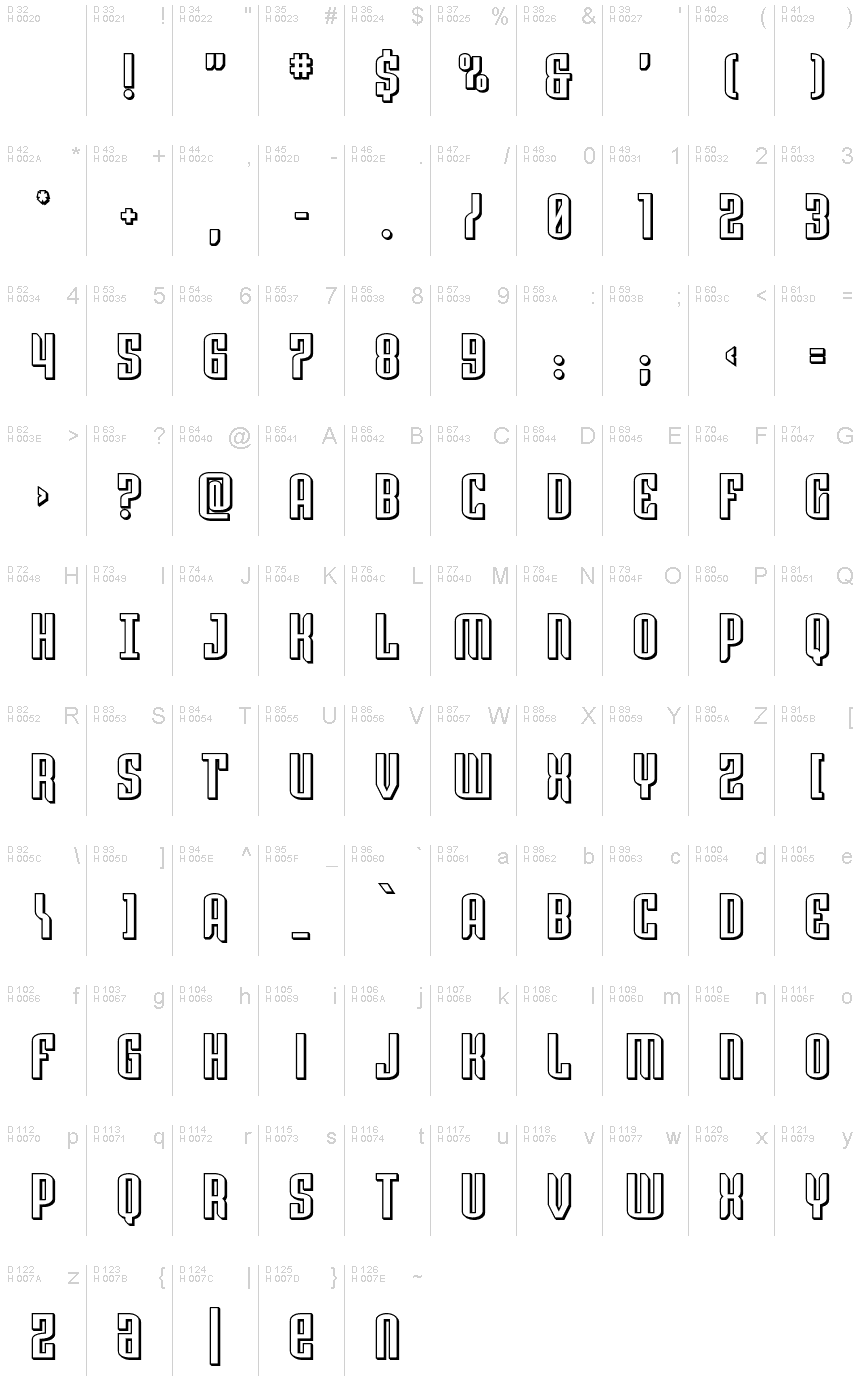
Icewave 3D
Icewave 3D is a cutting-edge display font designed by Iconian Fonts. With its striking 3D techno style and extra-condensed width, this font exudes modernity and sophistication. Perfect for futuristic projects, Icewave 3D adds a touch of high-tech elegance to game titles, sci-fi book covers, or technology-focused websites. Its bold presence demands attention and delivers an unforgettable visual impact. Let your creativity soar as you explore the endless possibilities this font offers, captivating audiences across various media. Unleash the power of Icewave 3D to create designs that stand out from the crowd with its unique combination of sleekness and innovation.